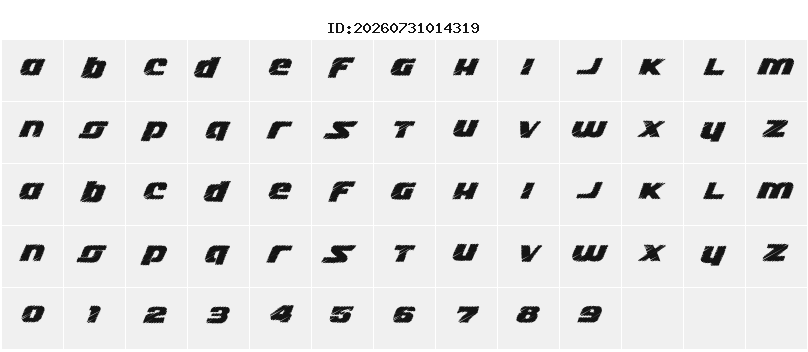
Lizzie! Preview
• Font Name: Lizzie!
• Full Font Name: Lizzie!
• PostScript Name: Lizzie
About Lizzie!.ttf
Lizzie!.ttf is a modern, elegant sans-serif font designed for ultimate readability and visual harmony. Perfect for branding, headlines, web design, and print materials.